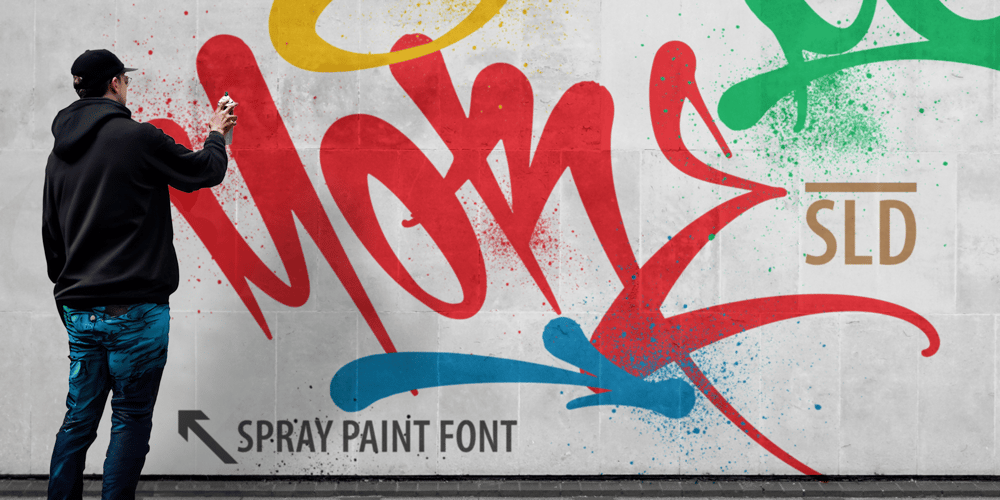
More Gaffiti Spray Paint Font Family was designed by Achmad Hanif Ulinuha and published by Madhaline Studio. More Gaffiti Spray Paint contains 2 styles and family package options. Tutorial : https://www.youtube.com/@madhalinestudioWant to inject realistic spray-painted graffiti into your typography? It’s time to launch (More Font)—a Graffiti Font with capital letters with a realistic spray paint feel in Fat Cap style. Hand-painted with a brush in the Procreate app on an Ipad Pro device, this attractive font set has a very realistic spray paint texture that is completely embedded in the font in the brush version.